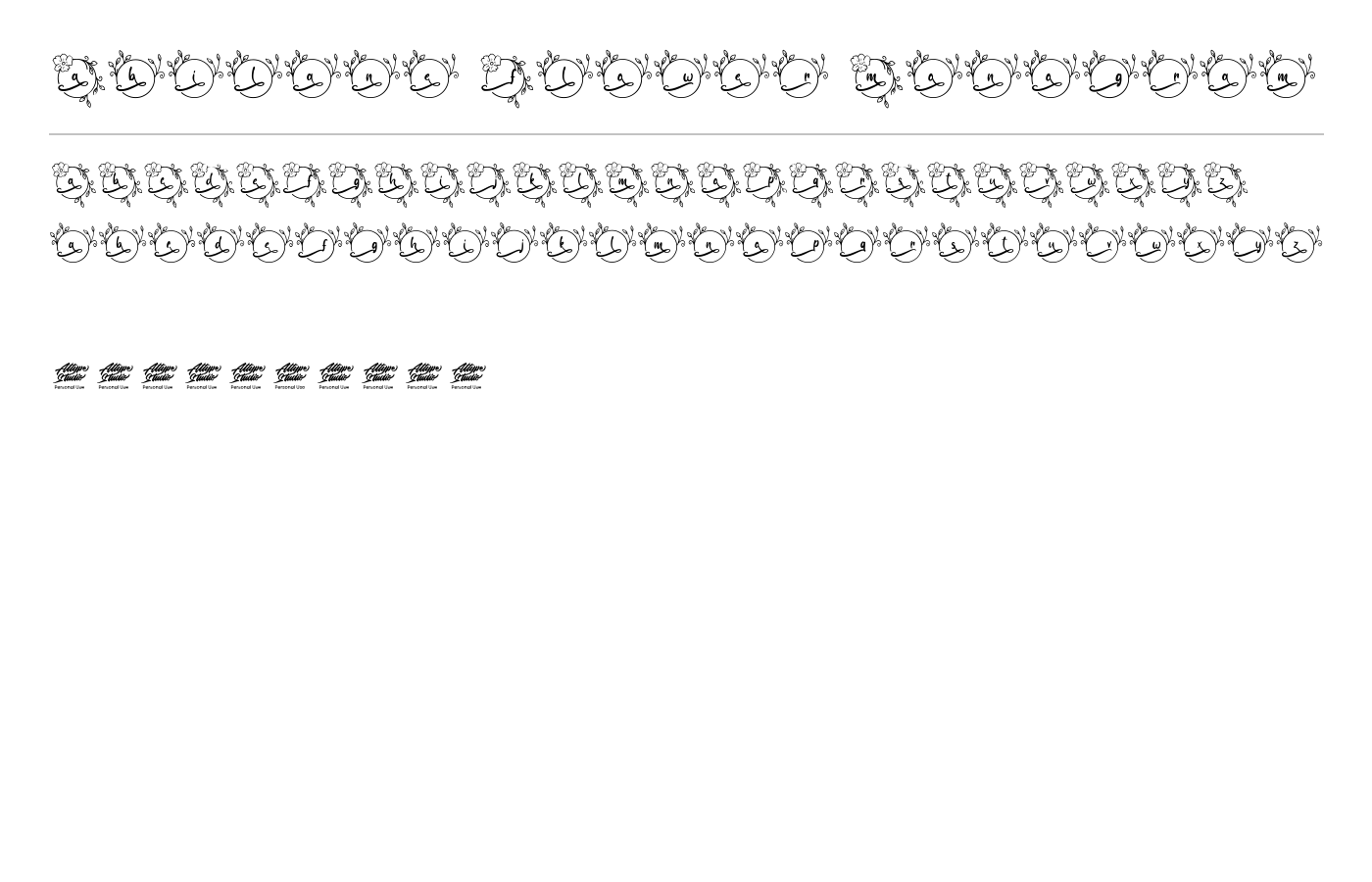
Abilane Flower Monogram is a decorative monogram font featuring elegant lowercase letters encircled by delicate floral motifs, creating a charming and whimsical look. Its thin, intricate lines and ornamental design make it perfect for personalized branding, wedding invitations, and feminine packaging, where a soft and graceful feel is desired. This font adds a unique handcrafted touch, especially suited for creating monograms and decorative initials.
Abilane Flower Monogram Font
About Abilane Flower Monogram Font
| Font family | Abilane Flower Monogram Font |
| Designer | Fadli Ramadhan Iskandar |